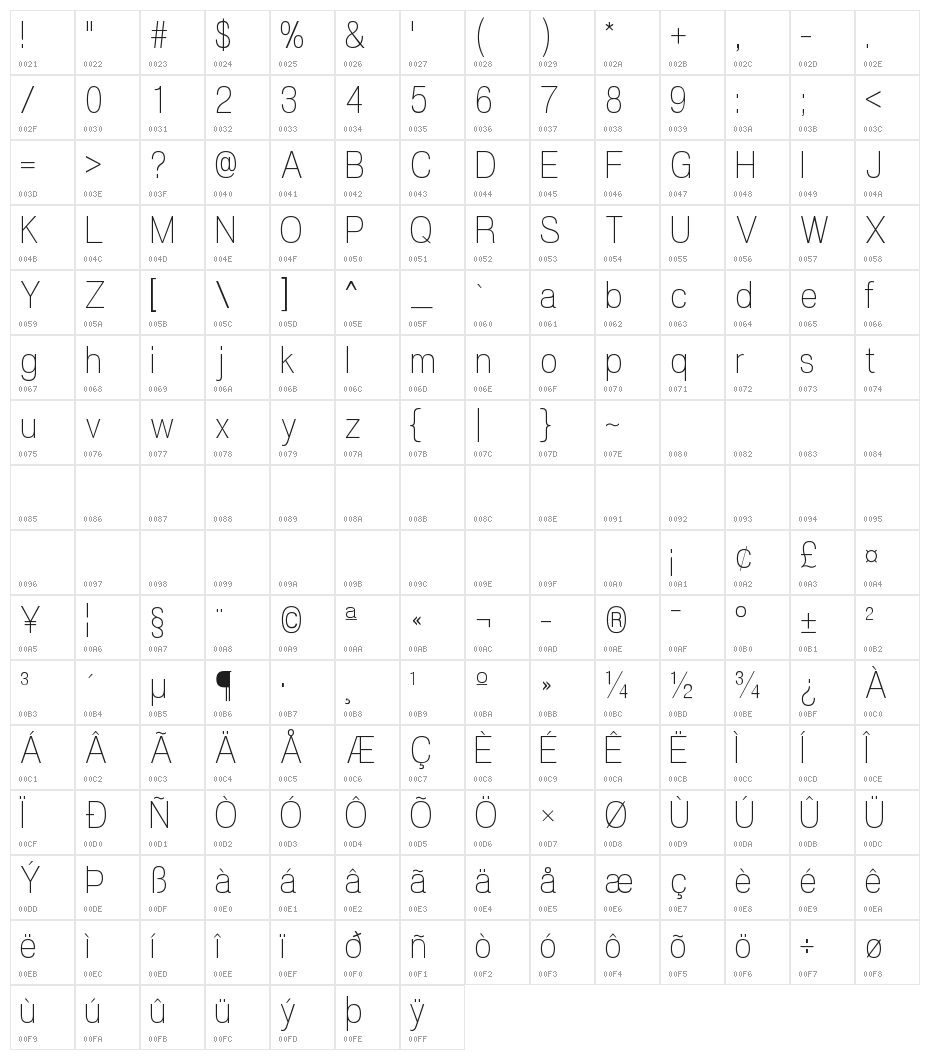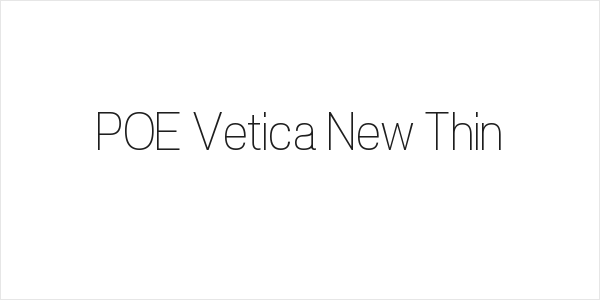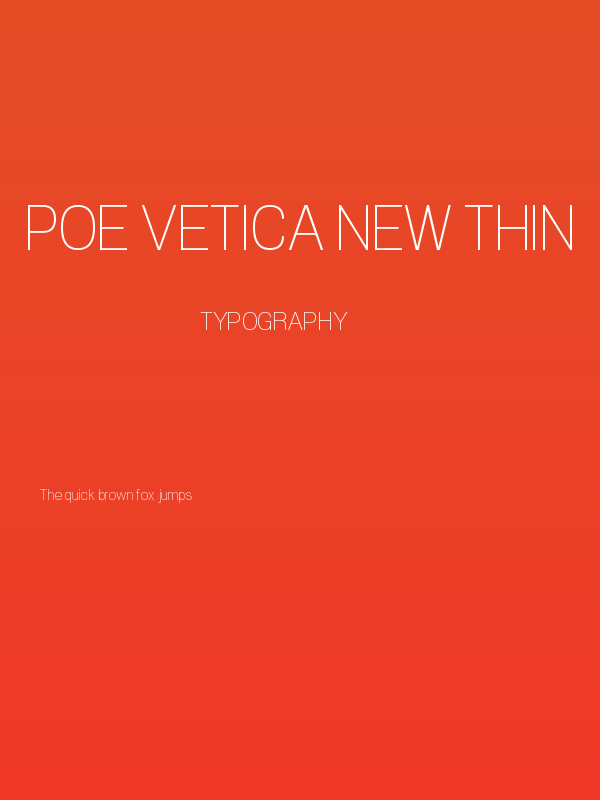
POE Vetica New Thin Font
POE Vetica New Thin Description
This font features a clean and modern sans-serif style with thin, uniform strokes that convey a sense of elegance and simplicity. The characters are well-proportioned, with a consistent height and width that enhances readability. The uppercase and lowercase letters maintain a harmonious balance, while the numerals and special characters integrate seamlessly into the overall design. The font's minimalistic approach makes it versatile for various applications, providing a sleek and contemporary look.
| Proposed Projects | Ideal for branding, minimalist design projects, digital interfaces, and editorial layouts. |